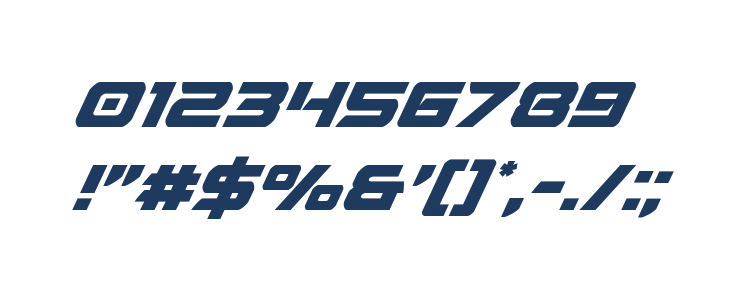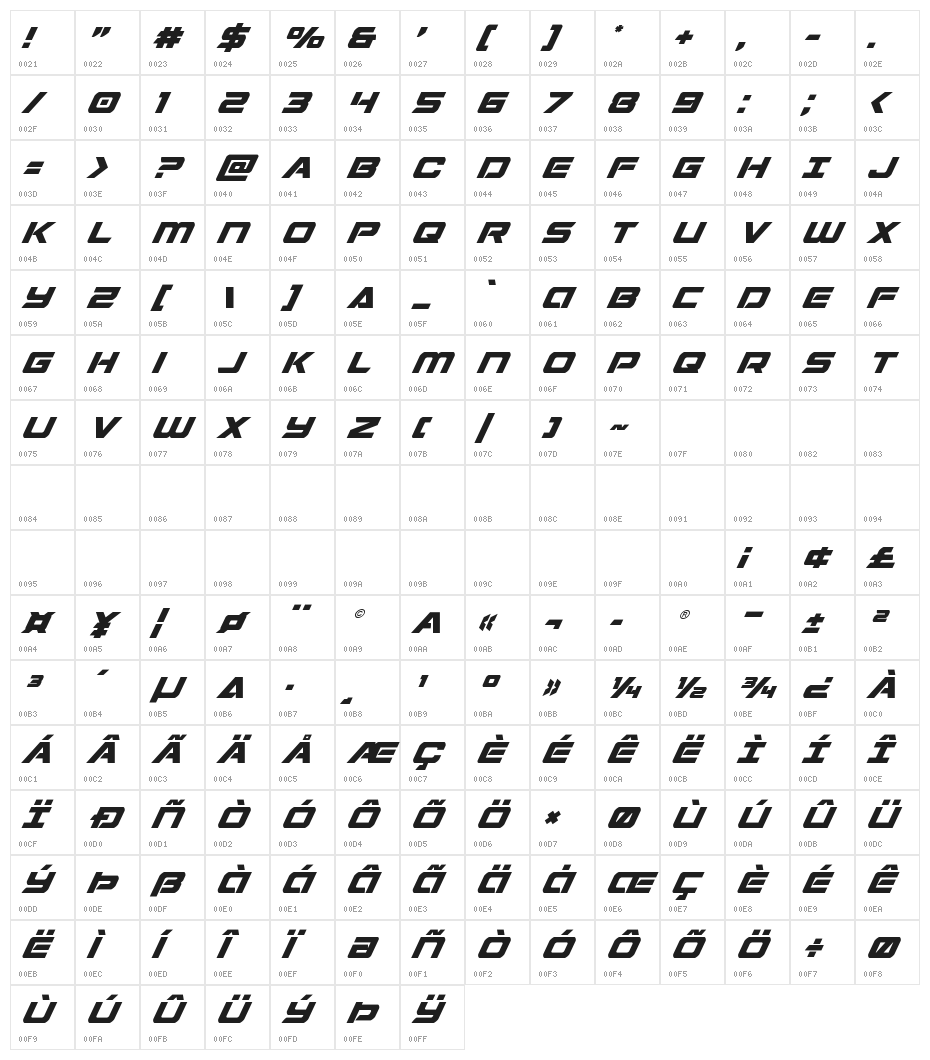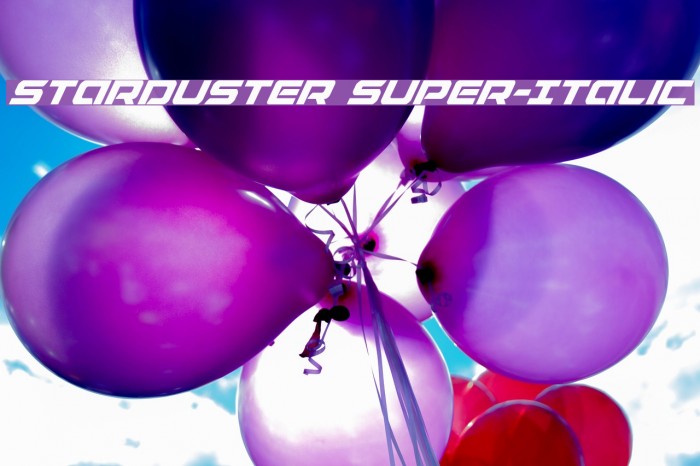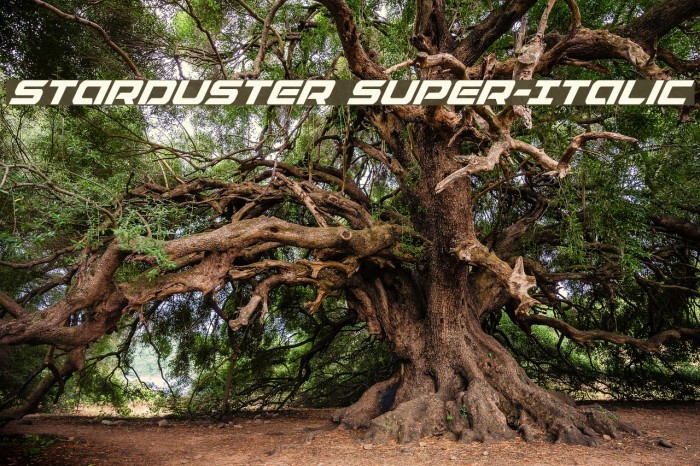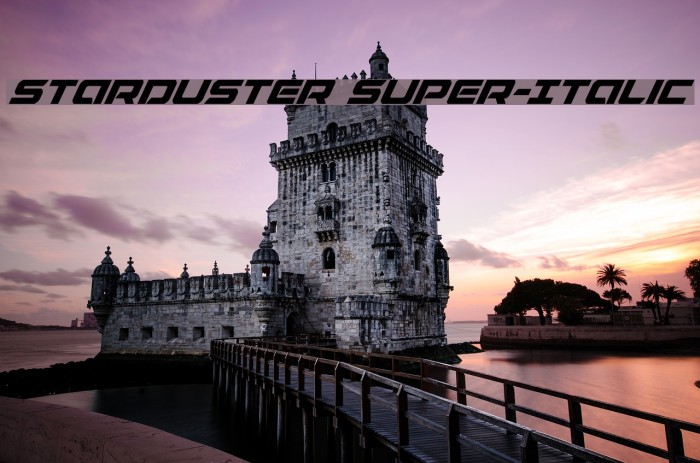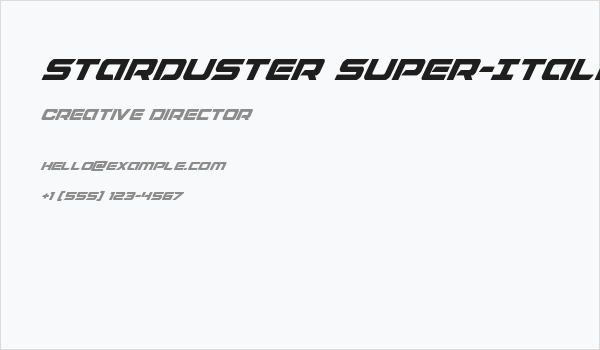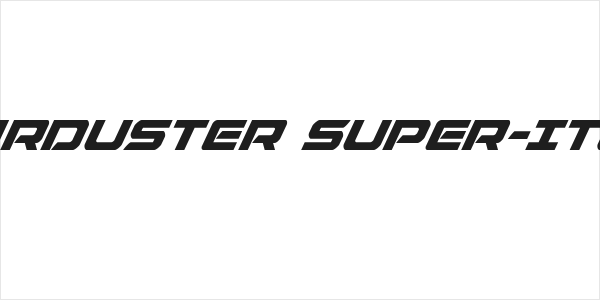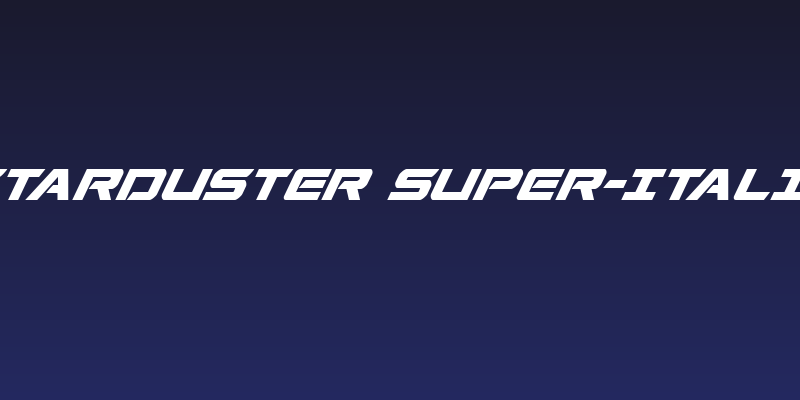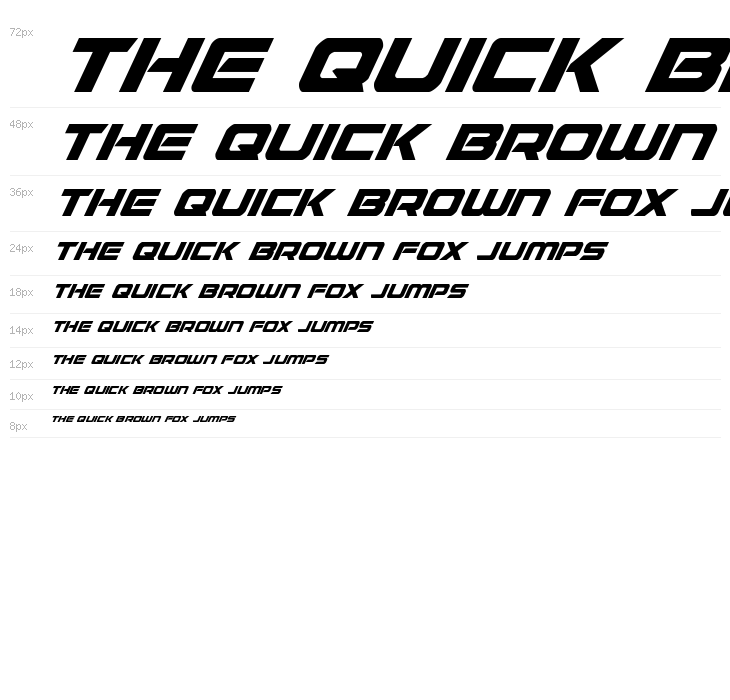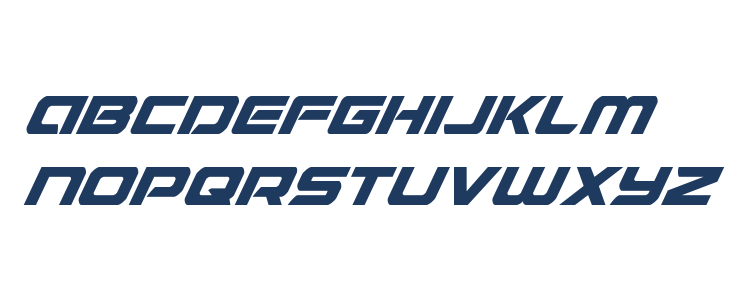
Starduster Super-Italic Font
Starduster Super-Italic Description
This font features a dynamic and futuristic style with a strong italic slant, giving it a sense of motion and speed. The characters are bold and angular, with sharp edges and a geometric structure that conveys a modern and tech-inspired aesthetic. The uppercase and lowercase letters maintain a consistent design, with the lowercase slightly smaller but equally impactful. The numerals and special characters follow the same design principles, ensuring uniformity across all glyphs. This font is ideal for projects that require a bold and energetic look, such as technology branding, sports team logos, or sci-fi themed designs.
| Use Case | Logos, Headlines |
| Proposed Projects | Ideal for technology branding, sports logos, and sci-fi themed designs. |